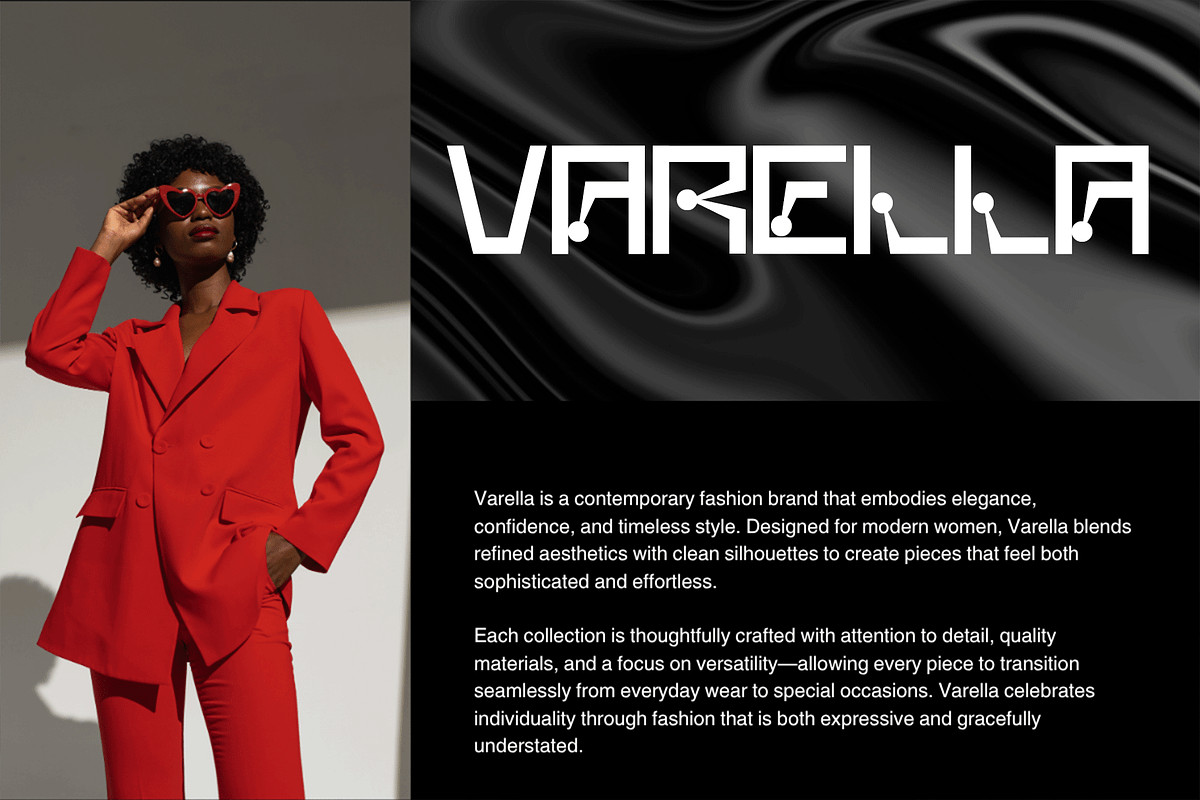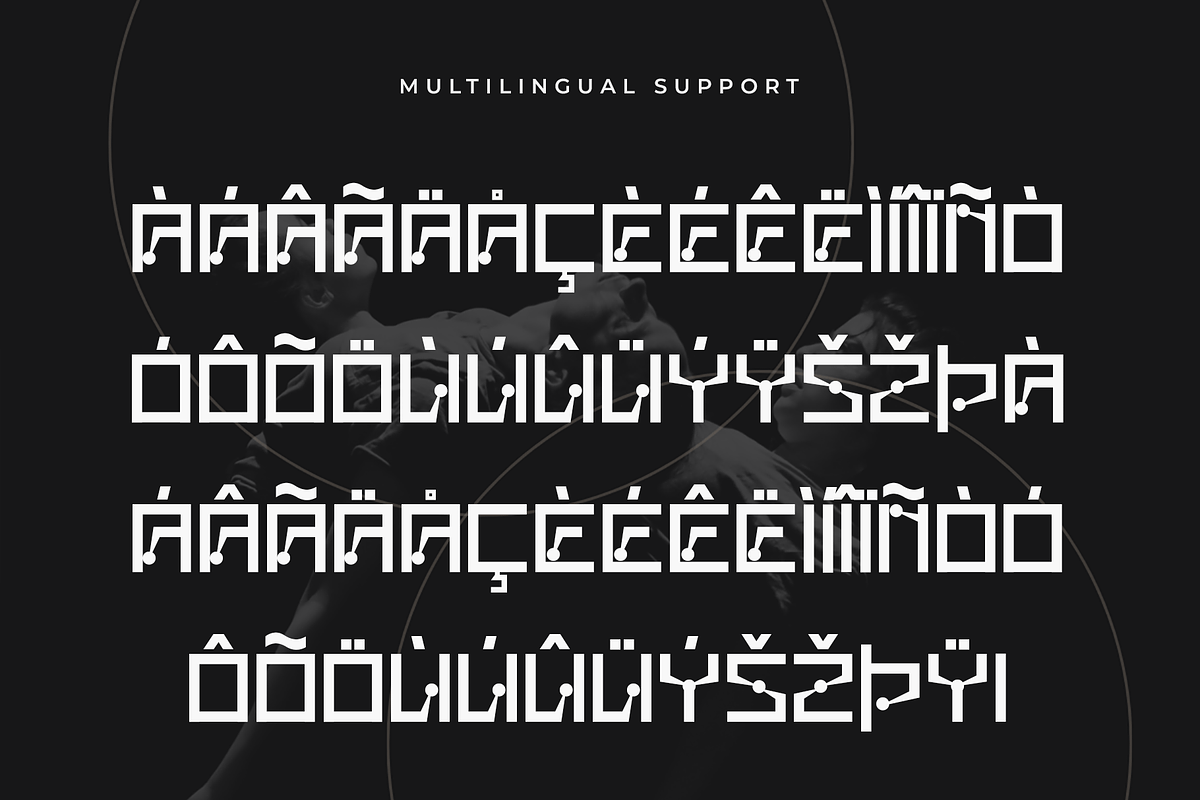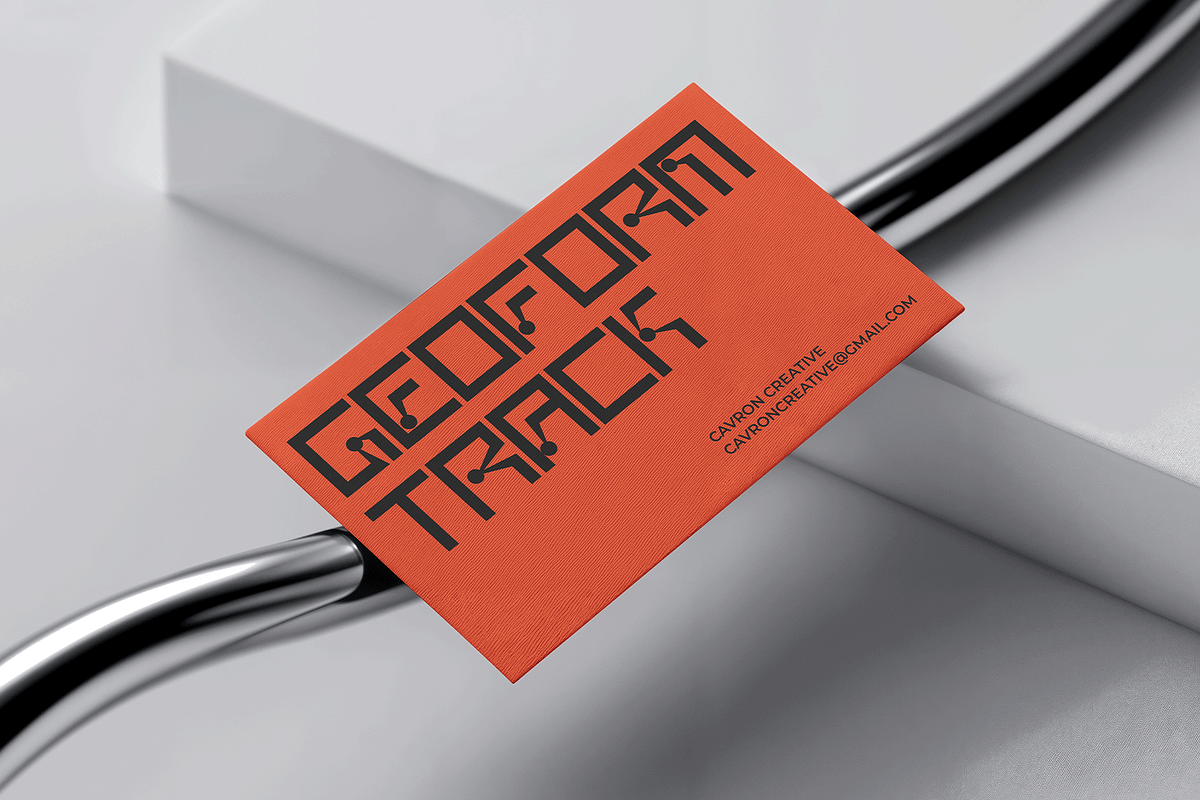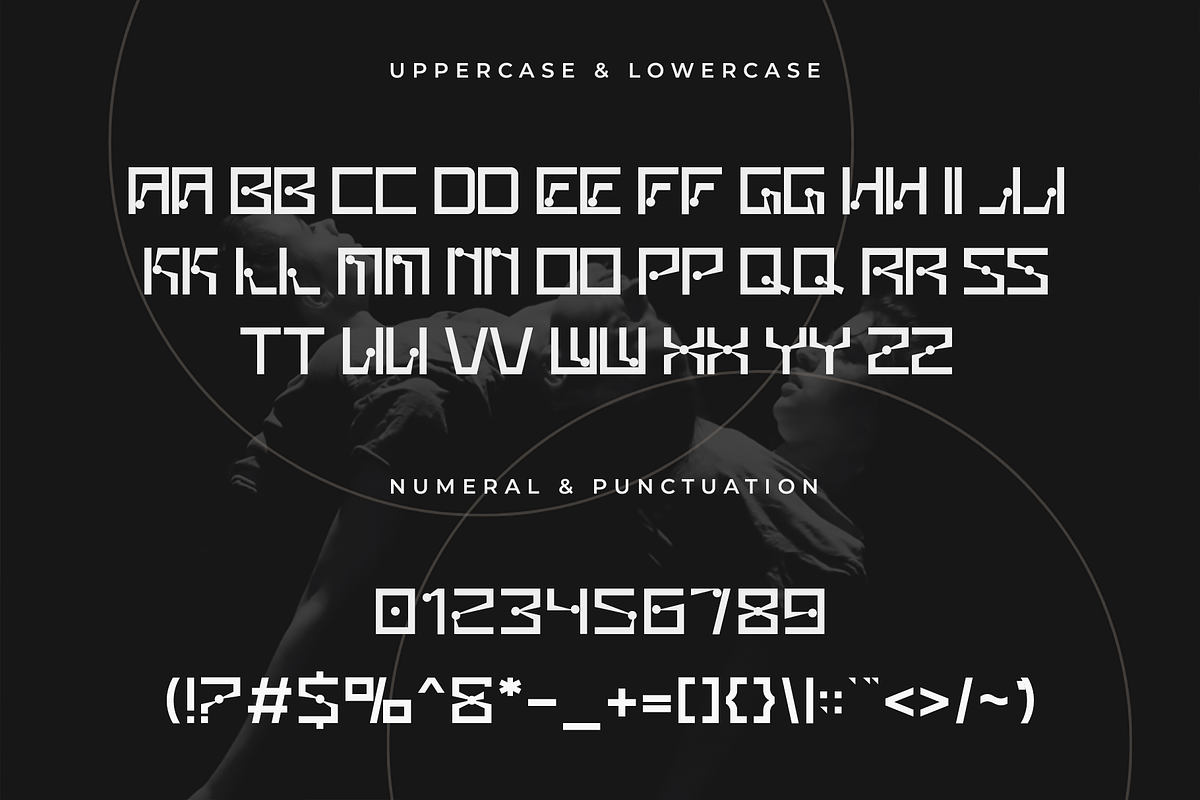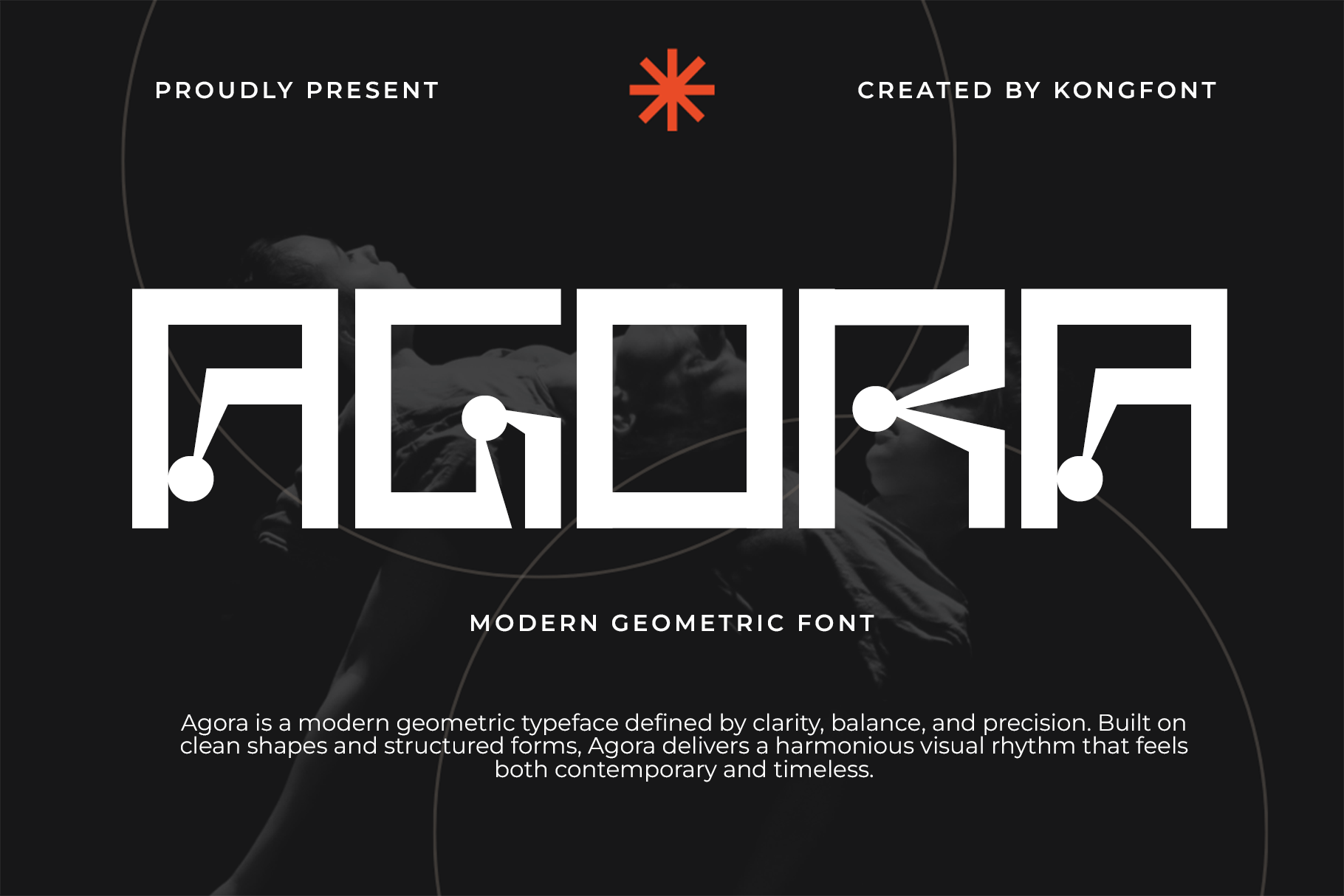
Agora – Modern Geometric Font
Agora is a modern geometric font crafted to deliver clean structure, balance, and contemporary clarity. Built with precise shapes and harmonious proportions, Agora embodies the essence of geometric design simple, bold, and highly functional.
Perfect for branding, logos, editorial layouts, posters, packaging, web design, UI/UX interfaces, and corporate identities, Agora provides excellent readability while maintaining a strong modern aesthetic. Its structured letterforms make it ideal for designers who value precision and minimalism.